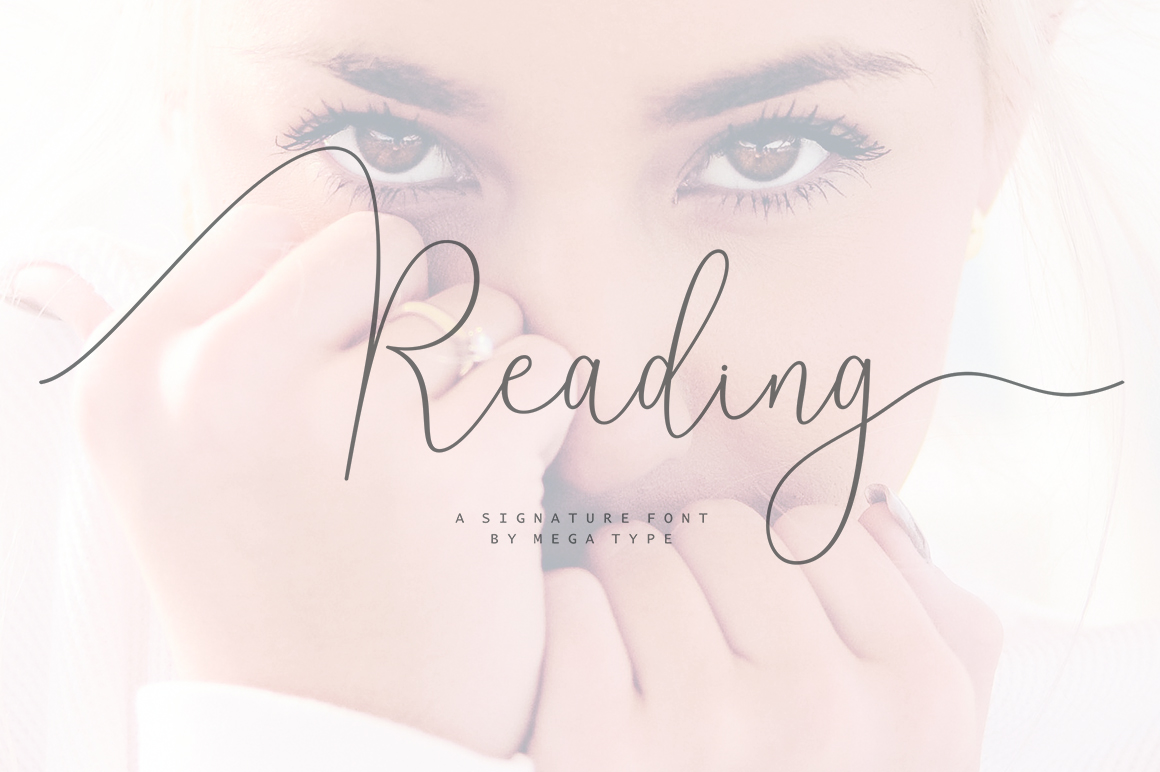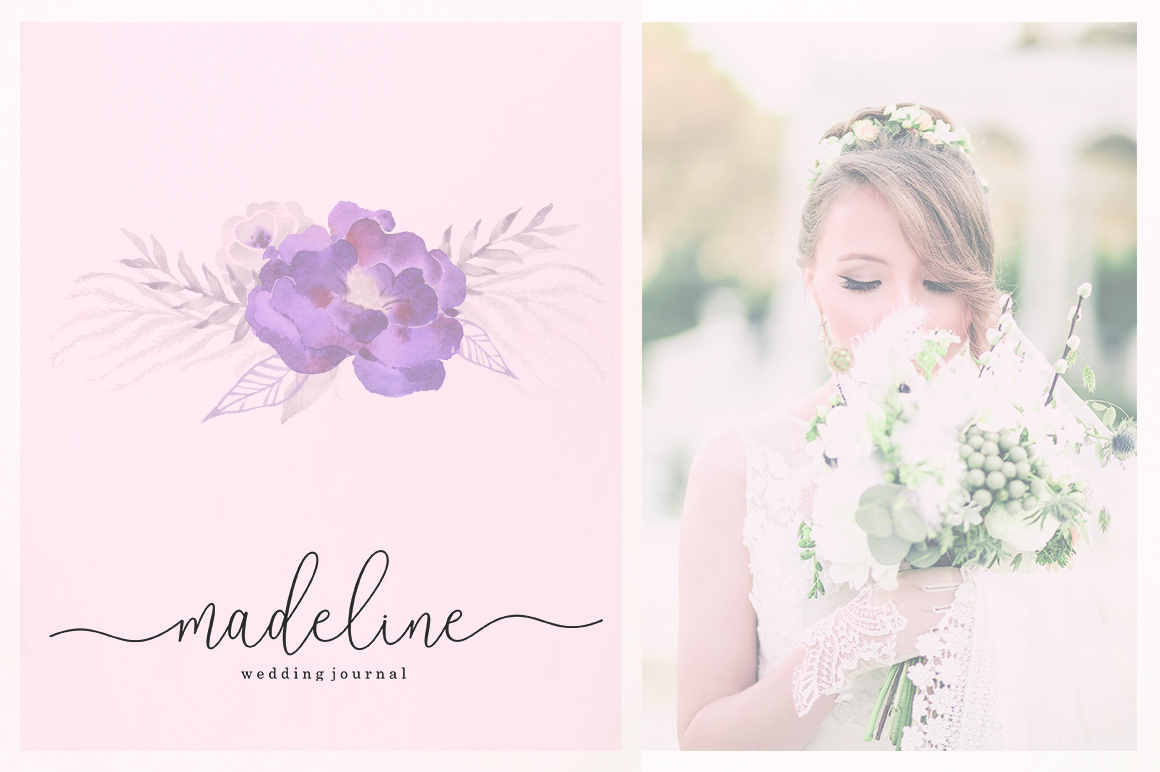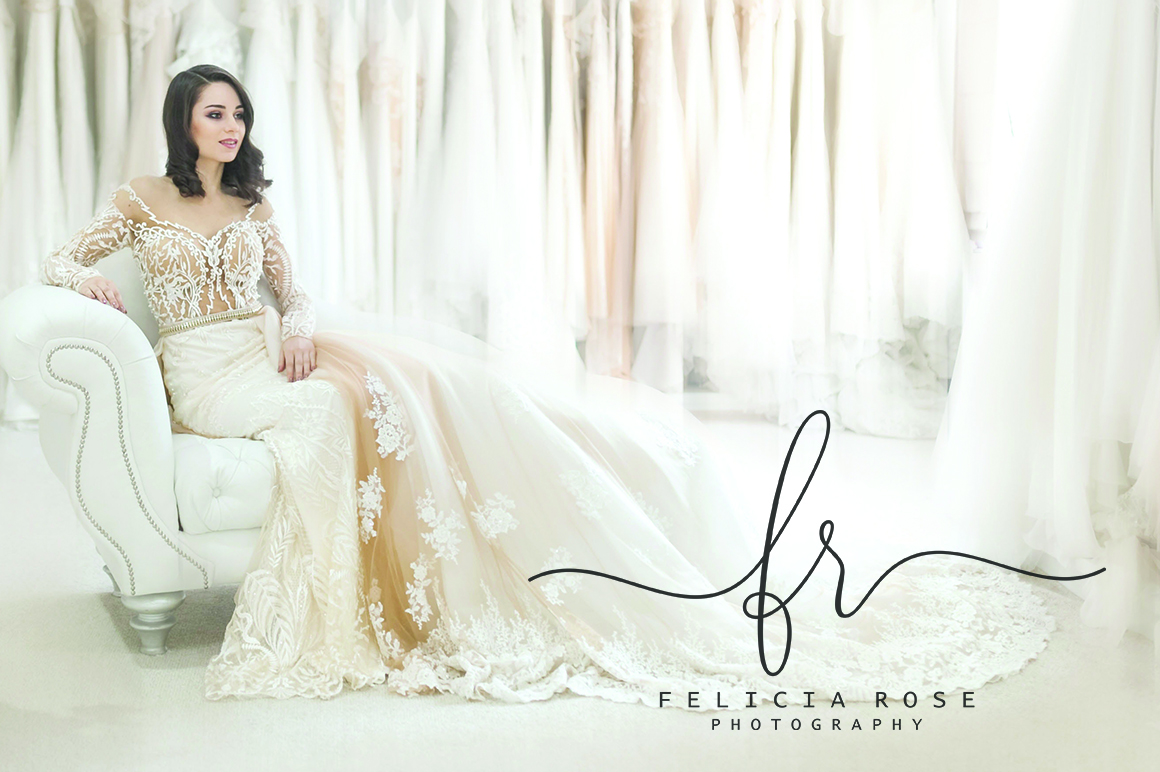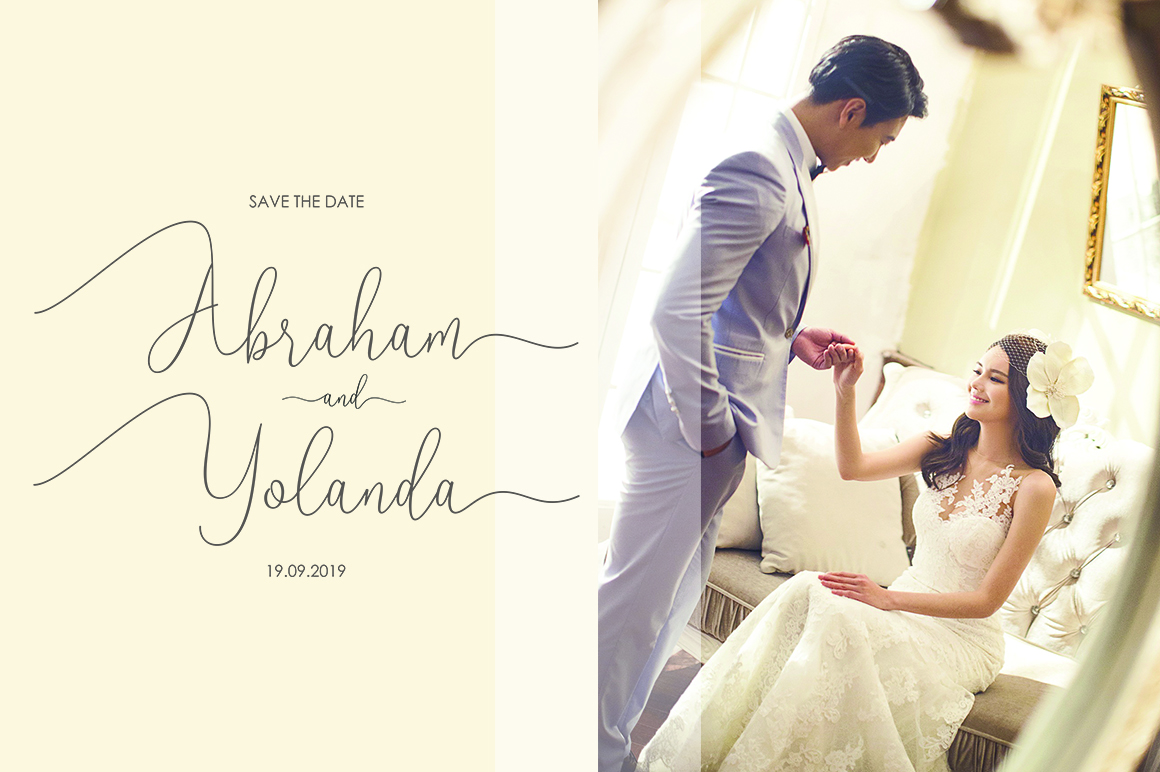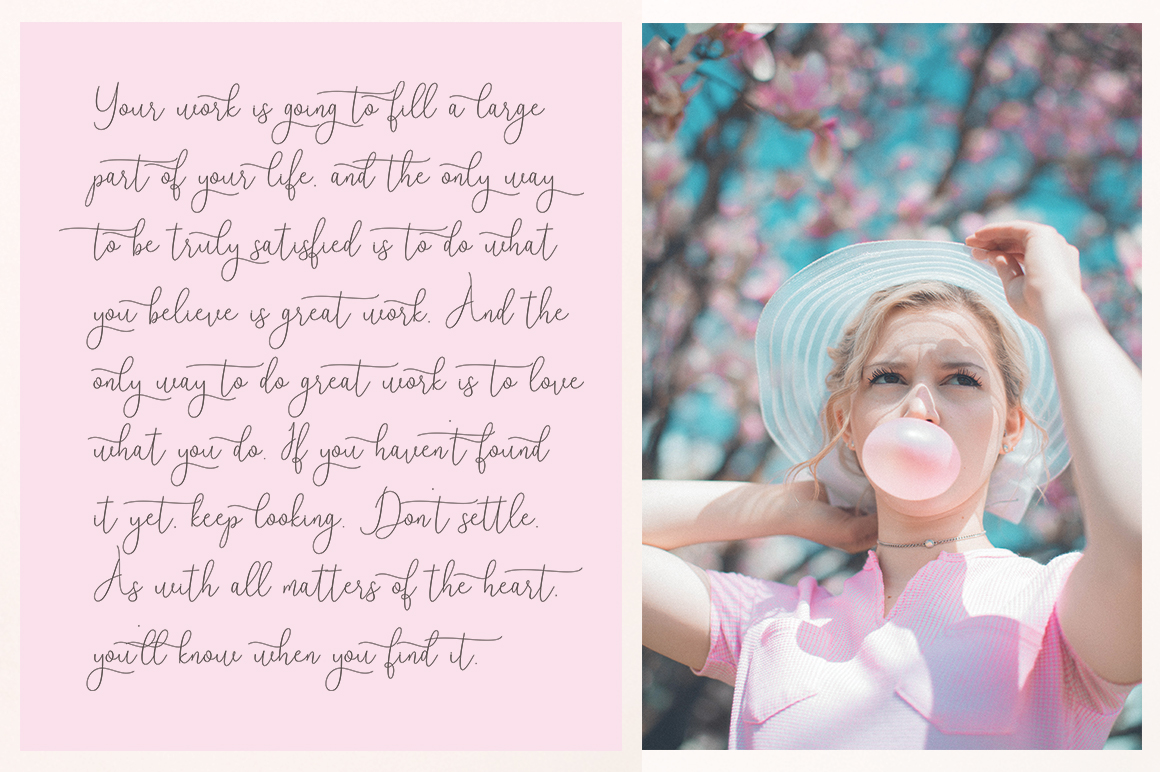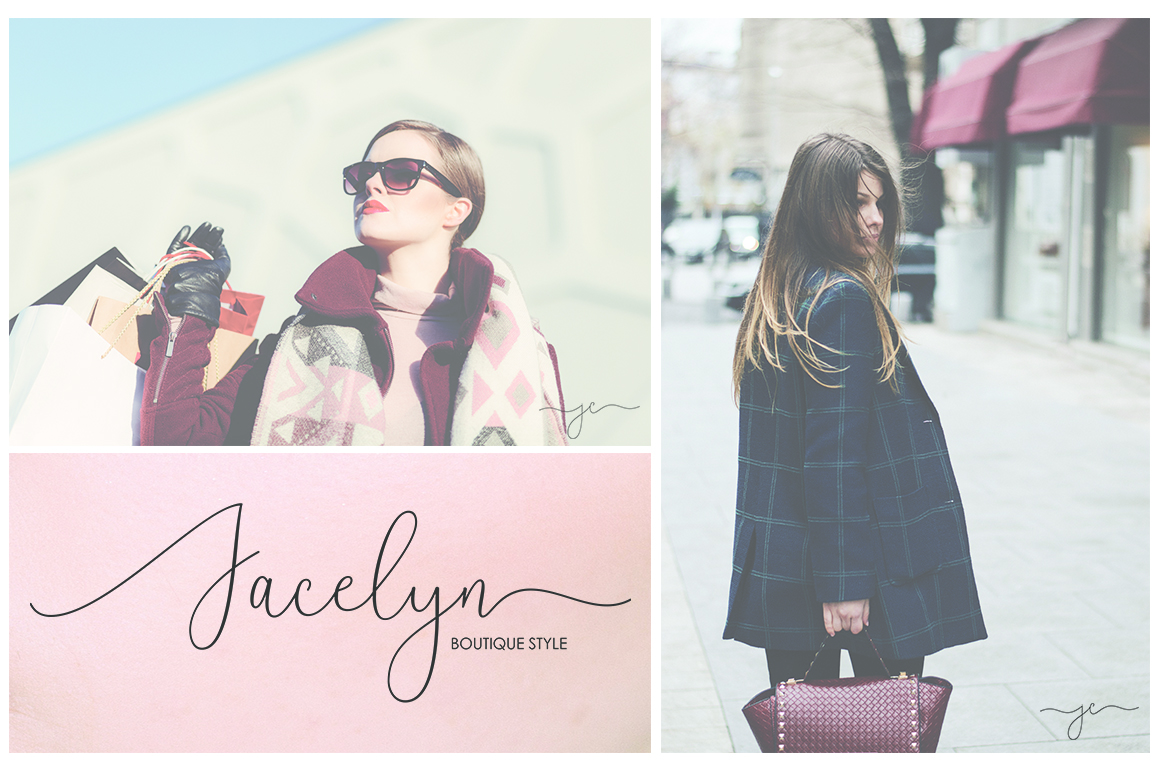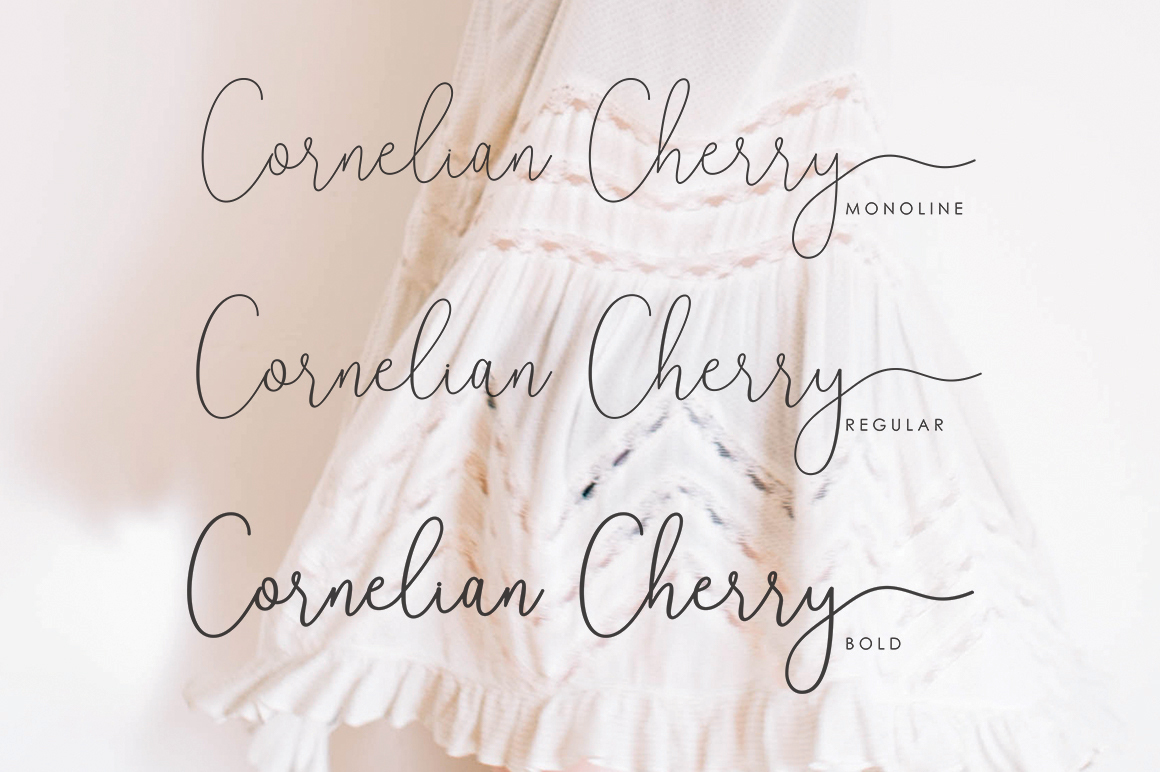
Reading Font
About Reading Font
Reading is a signature font that comes in 3 different versions:
1. Reading Regular
2. Reading Monoline
3. Reading Bold
The Reading font is pretty and packed with stunning swashes. It allows you to create stunning designs with many variations.